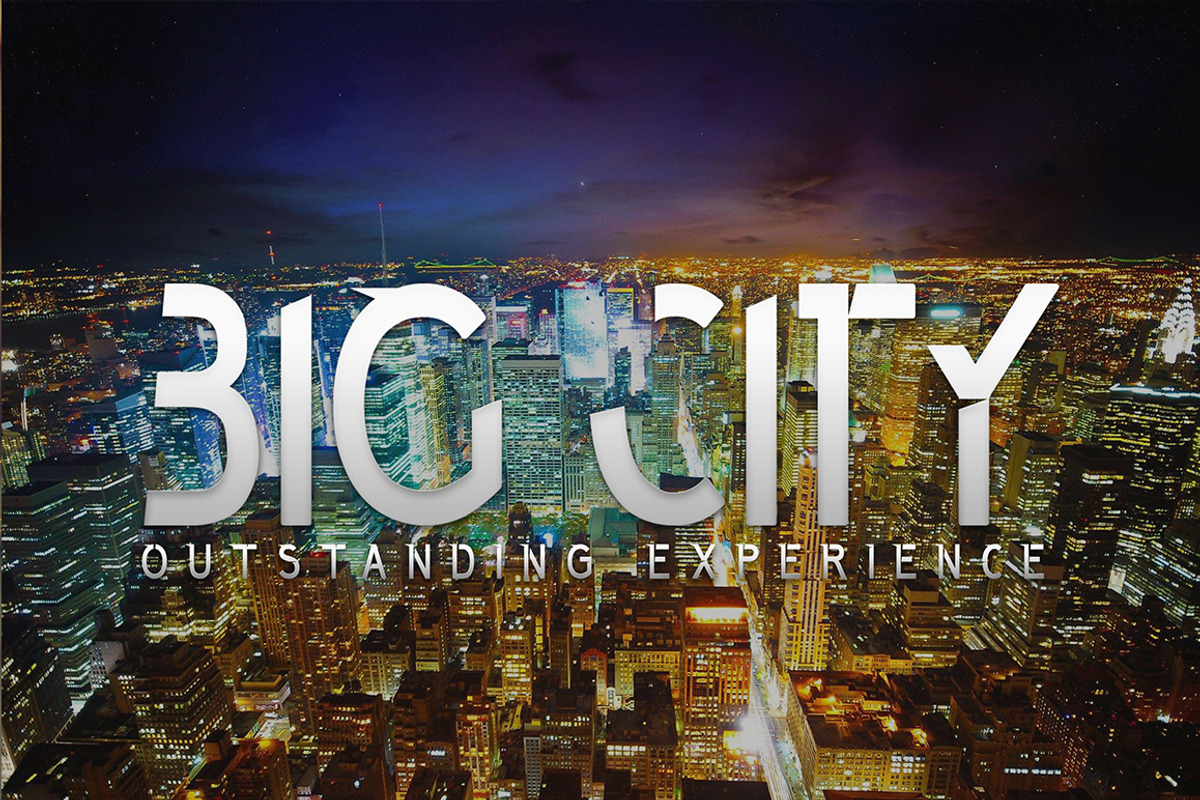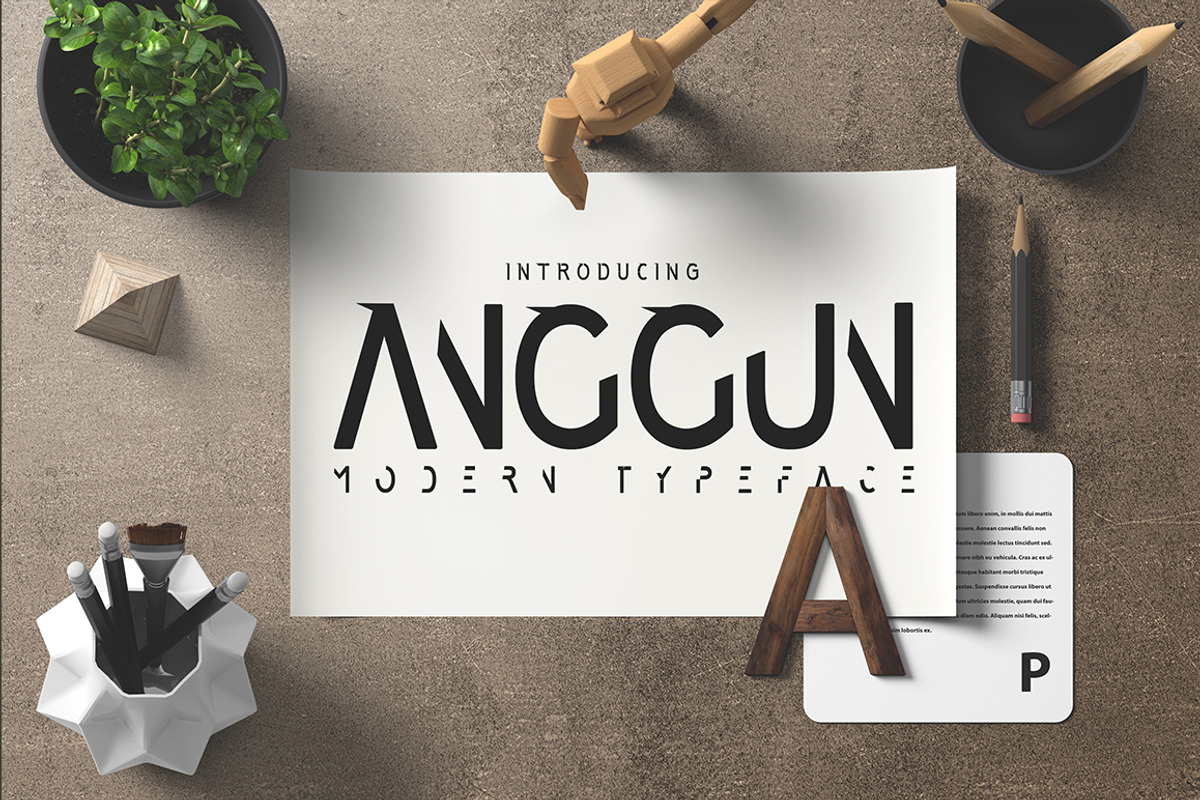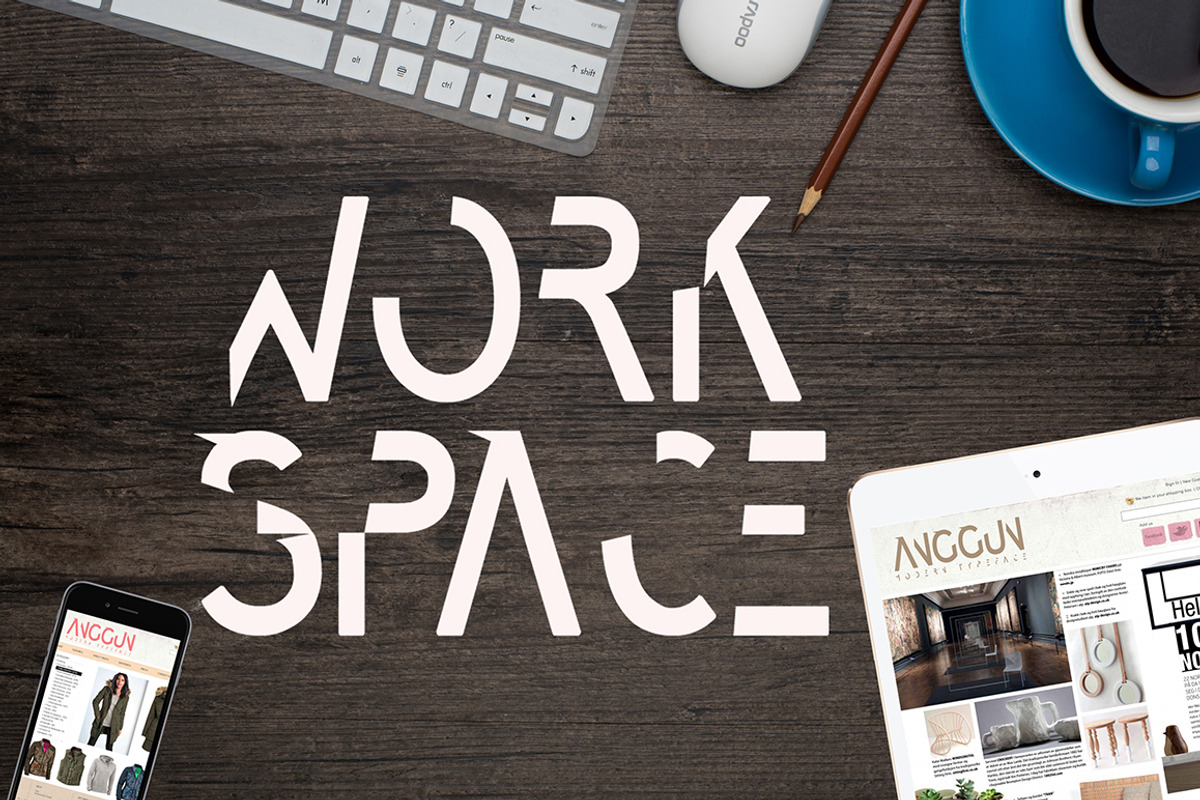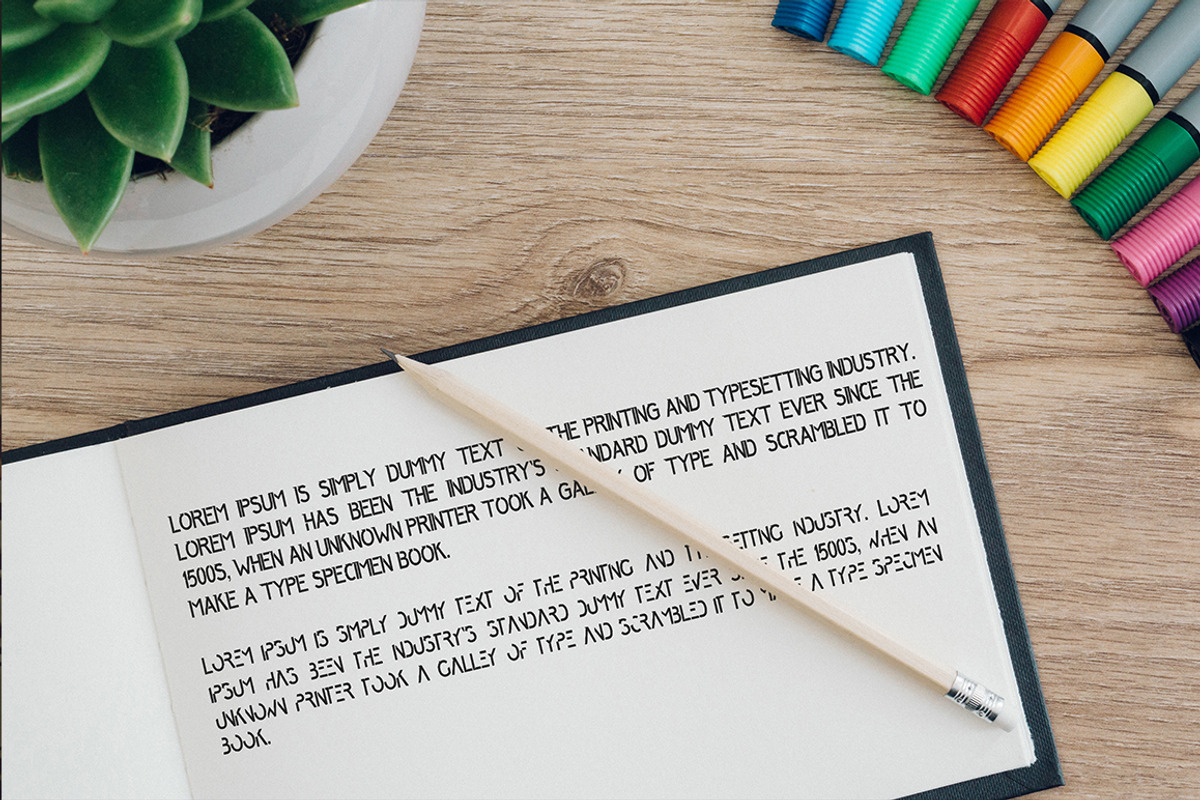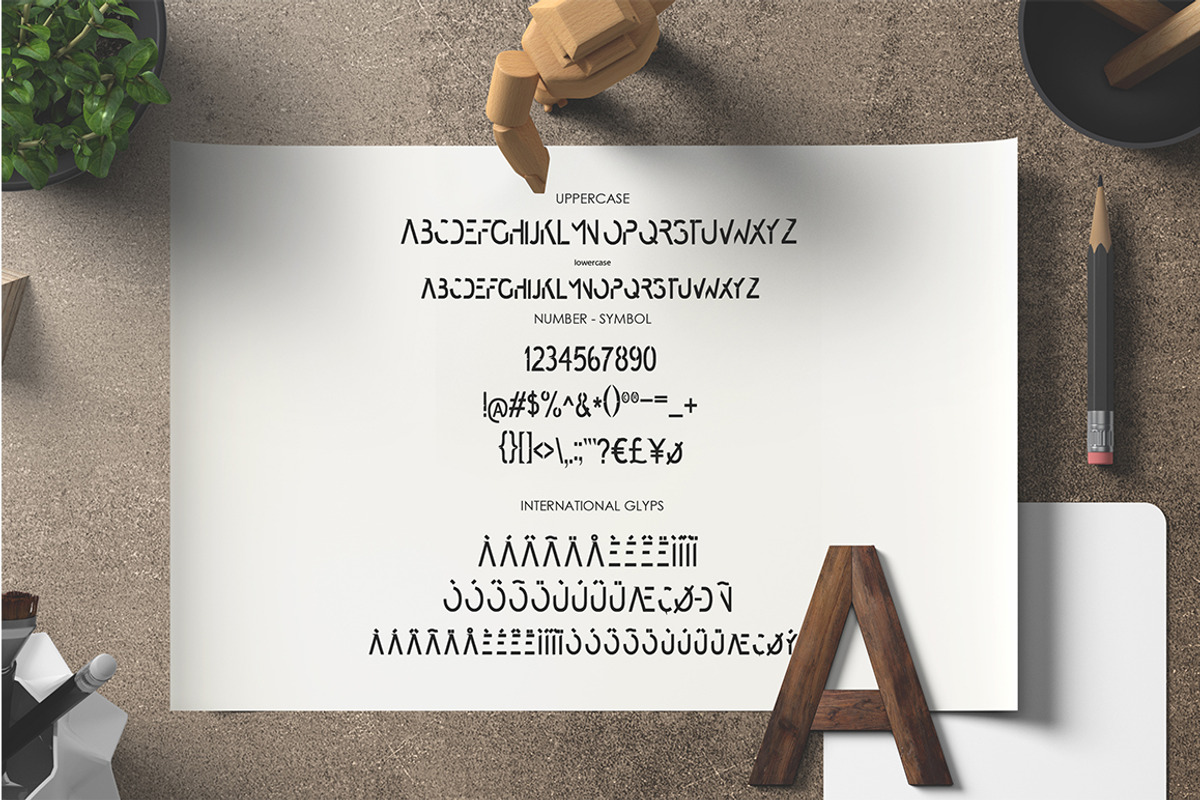
Anggun Font
Hello I'm really excited to introduce Anggun is a future style typeface font clean and elegant with 2 style. suitable to create any branding, product packaging, invitation, qoutes, t-shirt, label poster etc.
- Feature Uppecase & Lowercase Number & Symbol International Glyps If you need anything else just shoot me an email at: dedukvic@gmail.com fin
- Anggun Regular
- Anggun Sans Regular
Why Anggun Font is worth a look
Anggun Font by madeDeduk fits naturally into Branding, posters, packaging, typography.